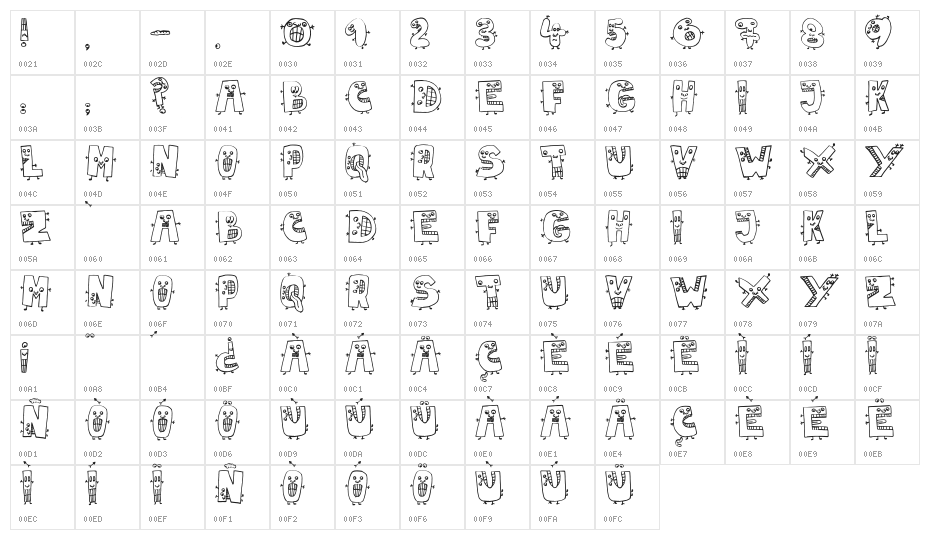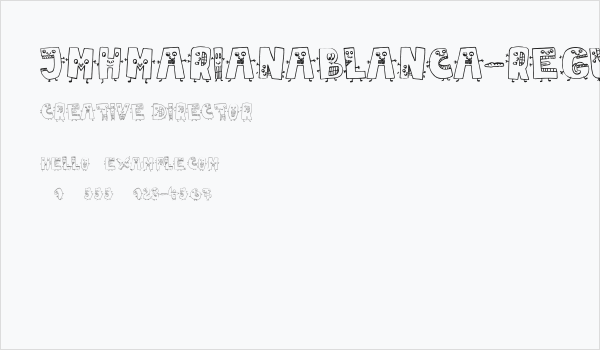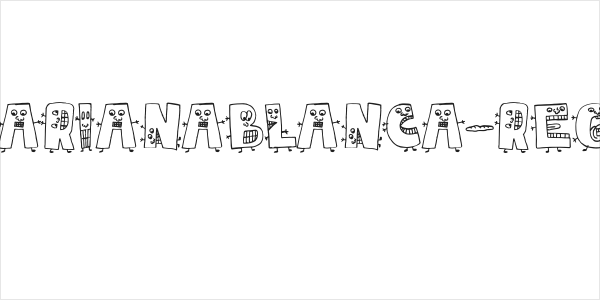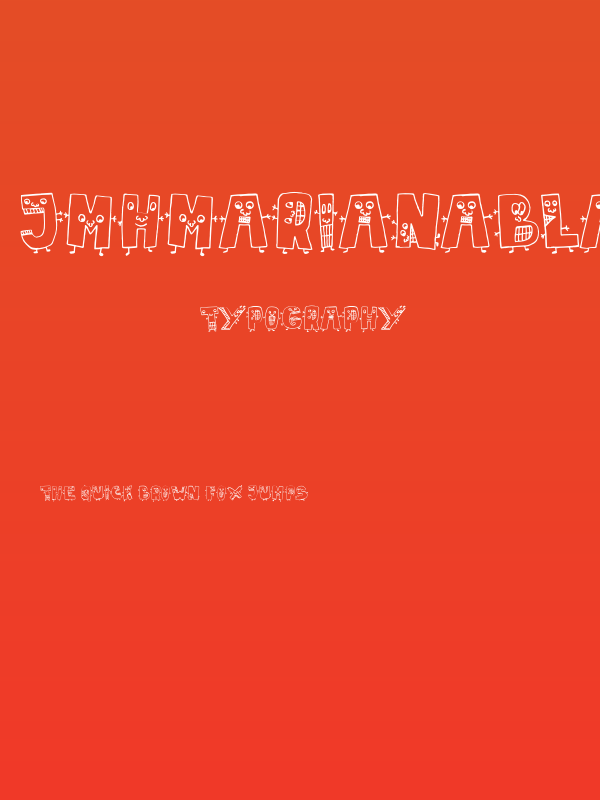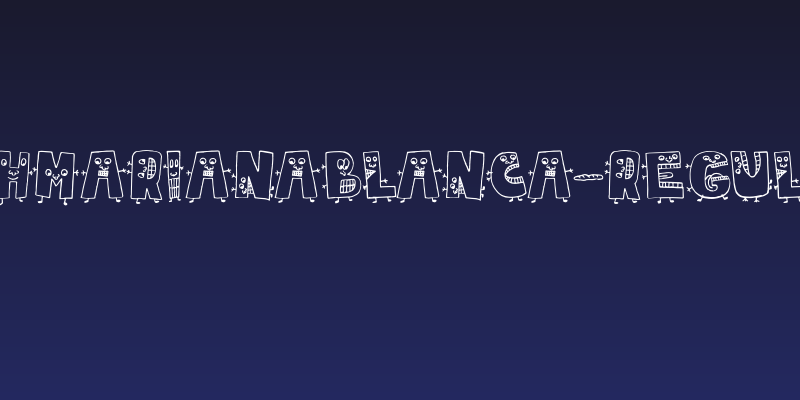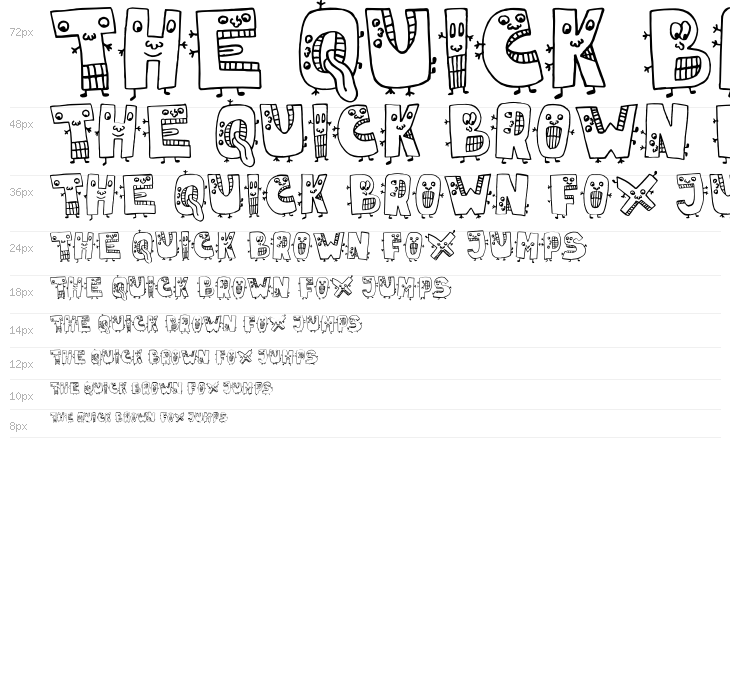
JMHMarianaBlanca-Regular Font
JMHMarianaBlanca-Regular Description
This playful and whimsical font features characters with unique, cartoon-like faces and expressions, giving each letter a distinct personality. The design incorporates a hand-drawn aesthetic with uneven lines and quirky details, such as stars, dots, and stripes, adding to its charm. The uppercase and lowercase letters maintain a consistent style, while the numbers and special characters continue the theme with imaginative faces and playful elements. This font is perfect for projects that require a fun and engaging visual appeal, making it ideal for children's books, playful branding, or creative posters.
| Overall Style | Playful, Whimsical, Hand-drawn |
| Proposed Projects | Children's books, playful branding, creative posters, educational materials. |